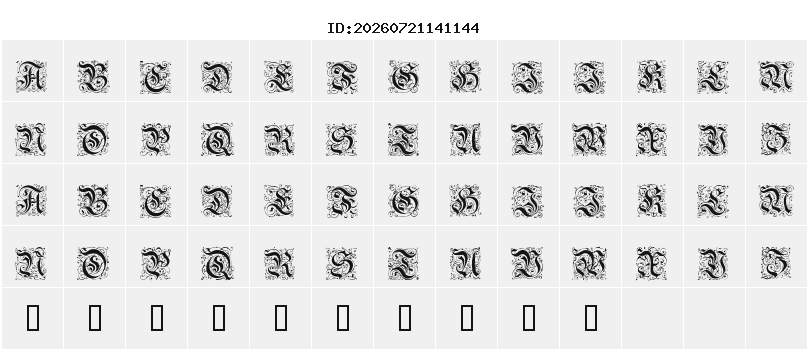
• Font Name: Feinsliebchen Barock
• Designer: Skilled Craftsman
• Manufacturer: Old-German Type foundry
• Description: This attractive initial font is from an unknown old German type foundry. A similar but bolder font is "Kanzlei Initialen". Scanned and digitised from paper by Typo-Graf on the 4th of January 2015.